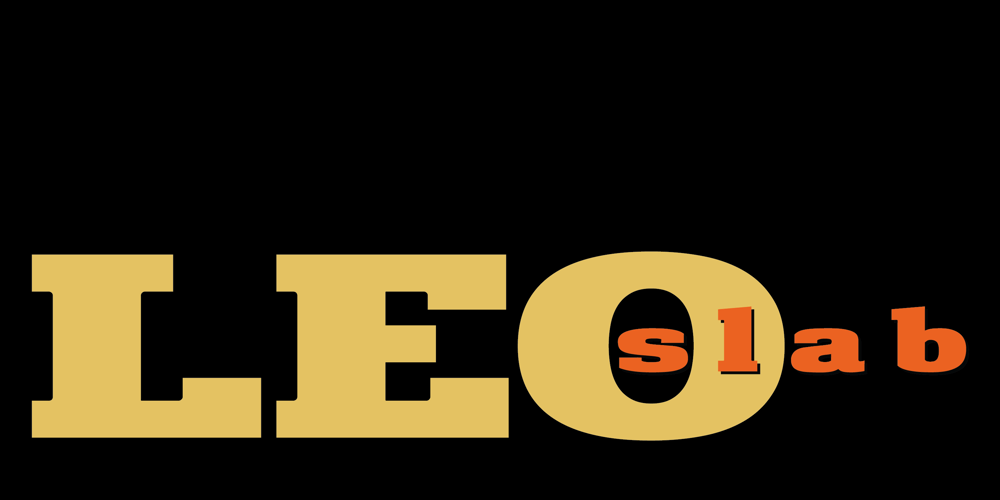
Leo Slab
Leo Slab font
Leo Slab Font Family was designed by James A. Lebbad and published by Lebbad Design. Leo Slab contains 2 styles and family package options. Leo Slab is a clean, contemporary slab-serif font. It’s bold extended design makes it a perfect choice for headline and larger text block use. Extremely readable for a strong impact! Leo Ornate is a decorative companion to Leo Slab. With it’s detailed inlines and linear drop shadow, Leo Ornate is ideally suited for use on headlines, display titles, logos, as well as a variety of other applications. Bold, extended and robust, this font is sure to make a strong impact in your next design.